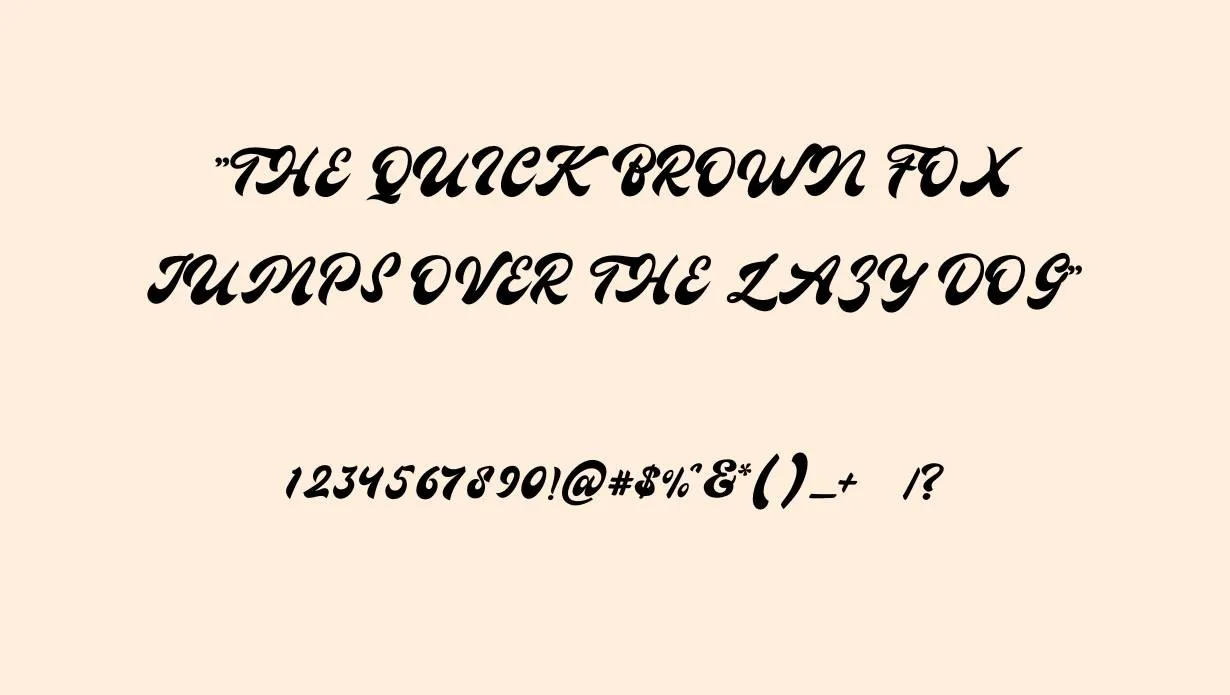
Antique Cable Bold Script Font provides a bold and expressive script typeface with a robust and dynamic design.
It’s frequently used in creative branding, advertising, and projects where designers want to create a memorable visual impact.
| Name | Antique Cable Bold Script Font |
| Designer | Ade Santani |
The font’s bold and brush-like strokes add a sense of energy and vibrancy to your designs.